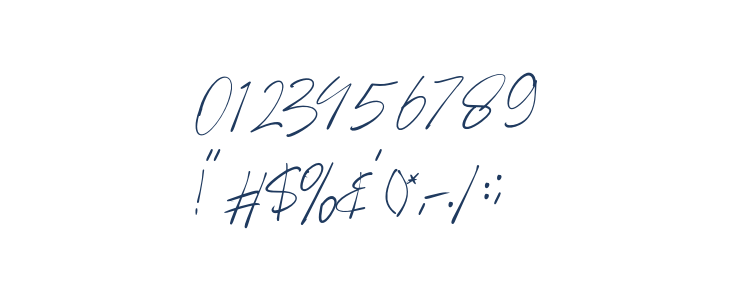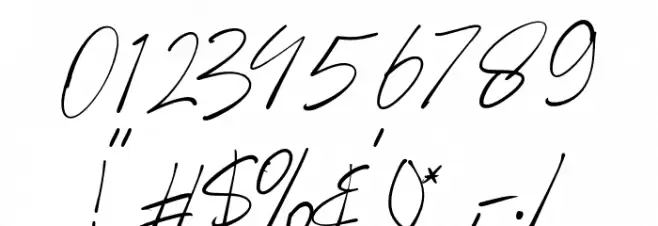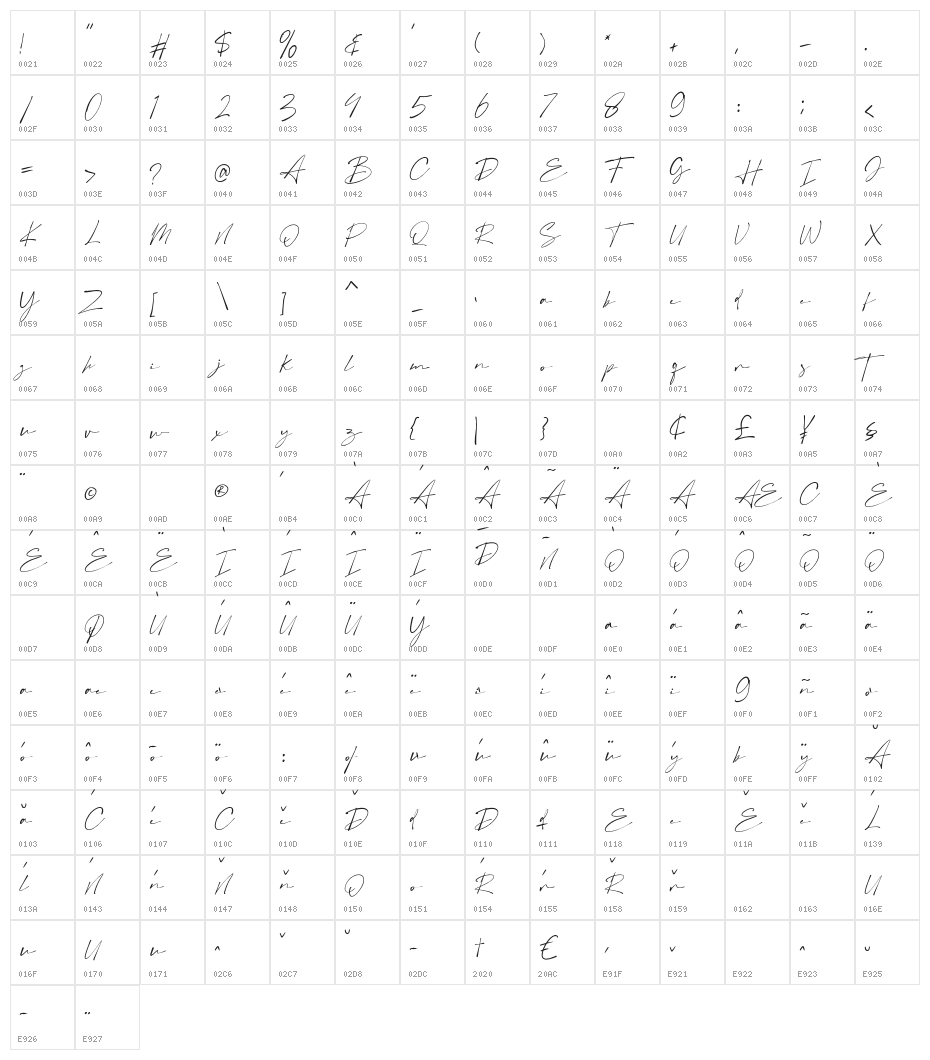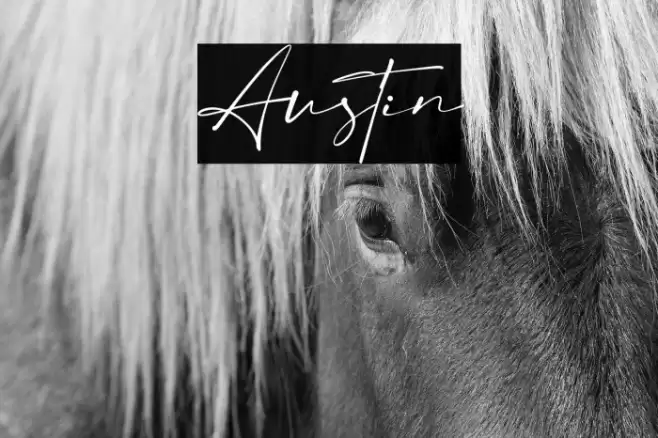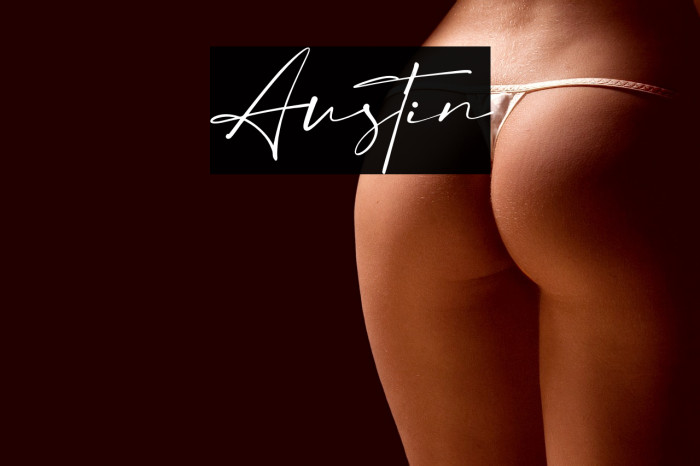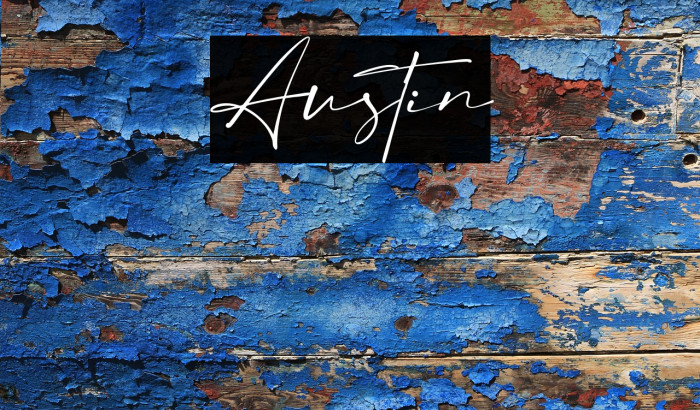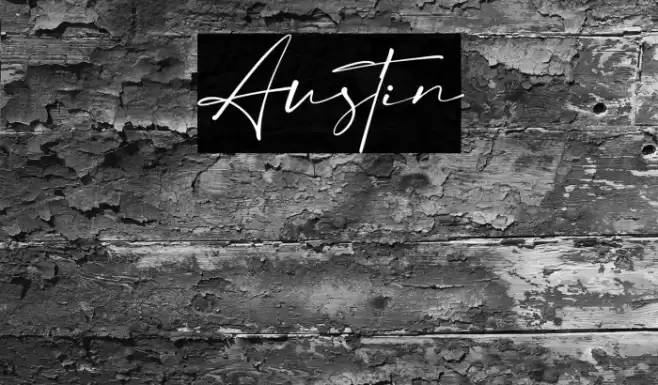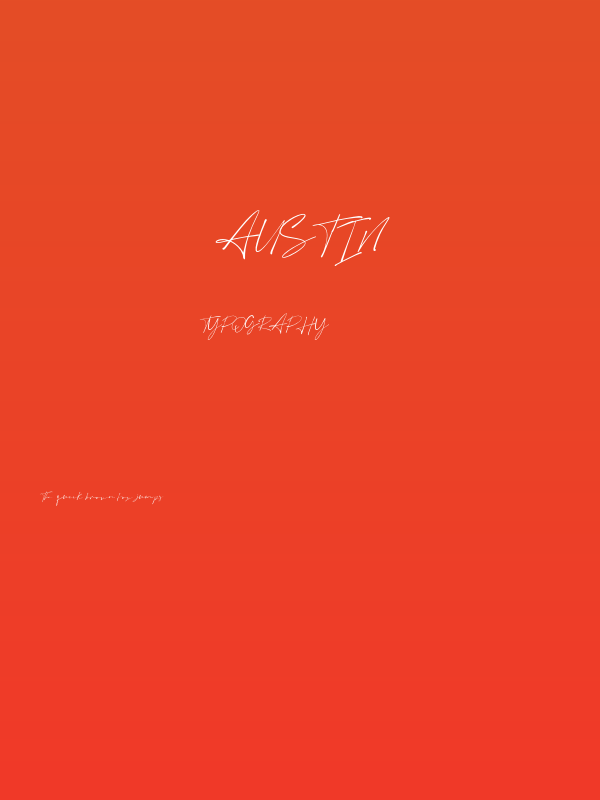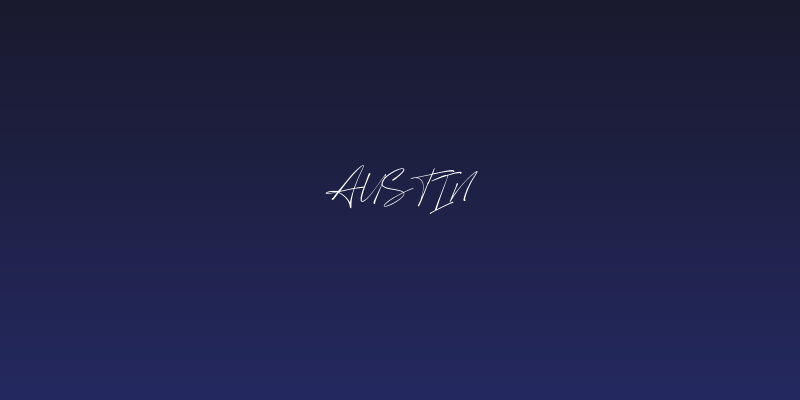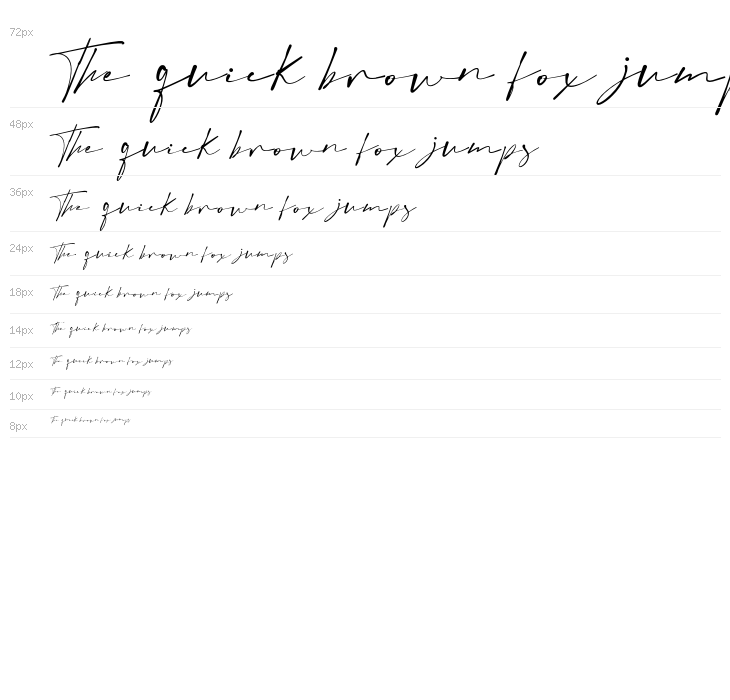
Austin Font
Austin Description
This font exudes a modern and elegant handwritten style, characterized by its fluid and cursive letterforms. The uppercase letters are bold and sweeping, with a dynamic flow that suggests a sense of movement and grace. The lowercase letters maintain this fluidity, offering a harmonious blend of curves and loops that enhance readability while retaining a personal touch. The numerals are consistent with the overall style, featuring a similar cursive flair. Special characters are thoughtfully integrated, maintaining the font's cohesive aesthetic. The overall impression is one of sophistication and artistic expression, making it suitable for projects that require a personal and stylish touch.
| Proposed Projects | Ideal for wedding invitations, personal branding, greeting cards, and artistic projects. |